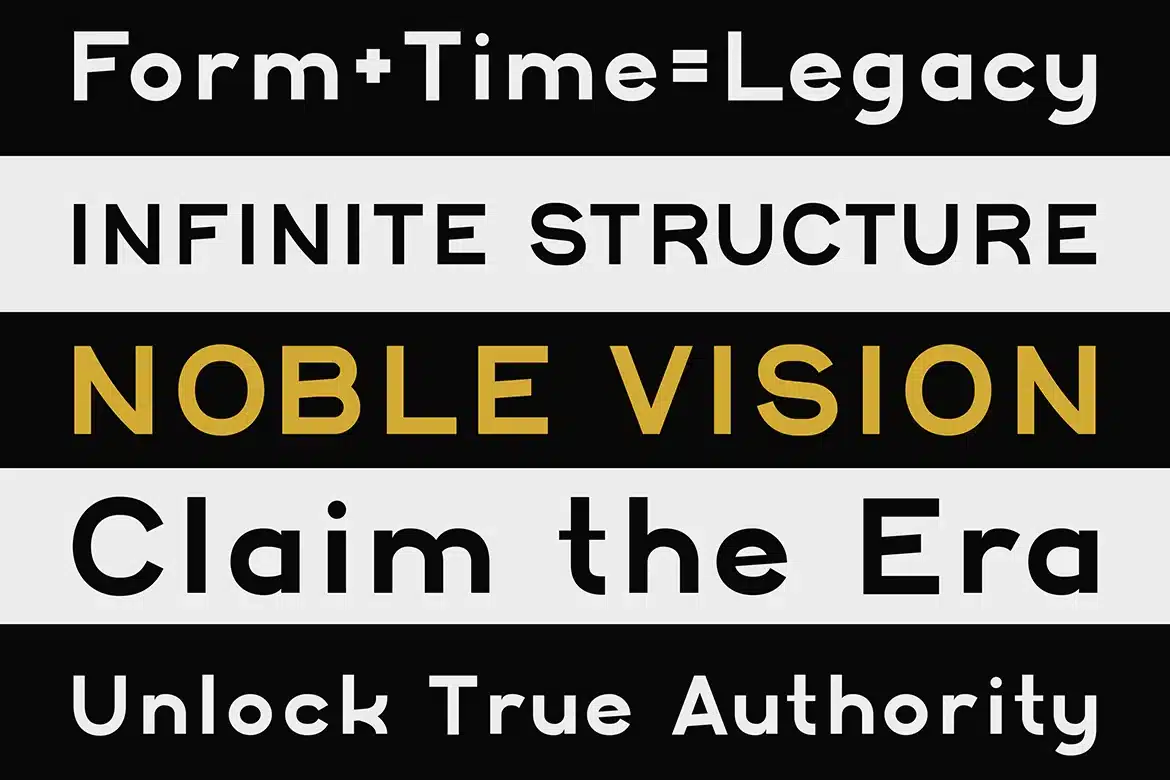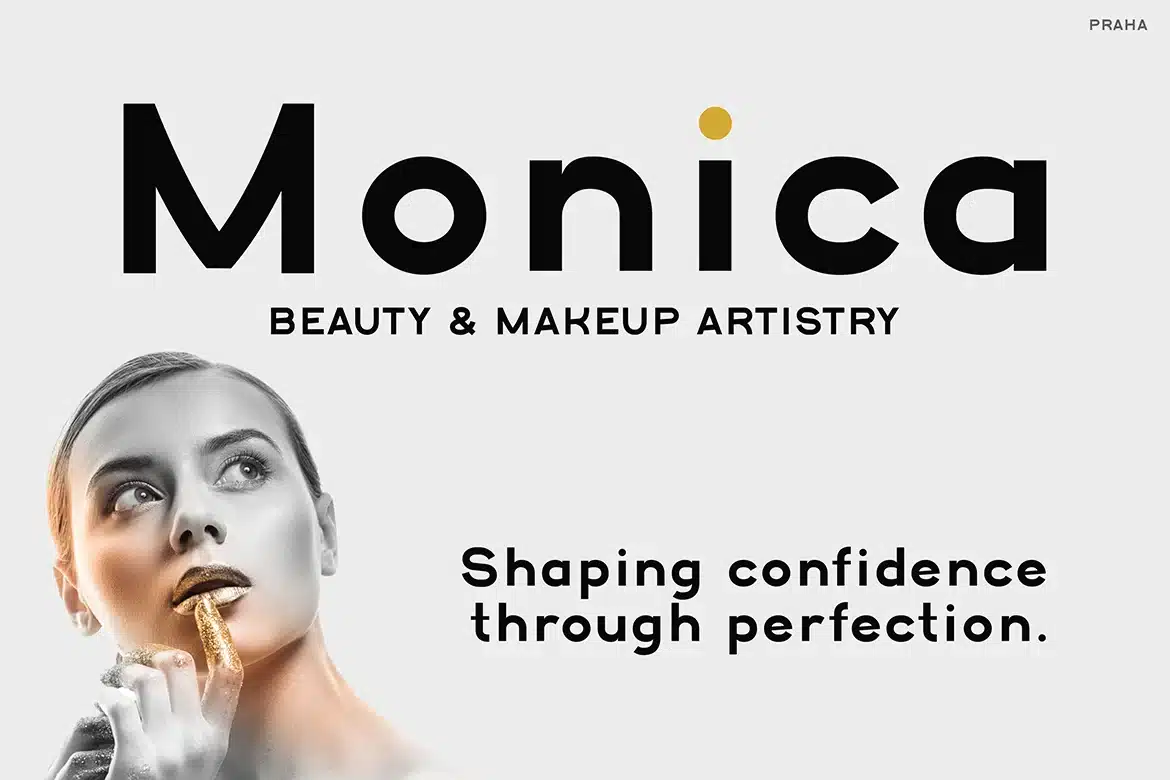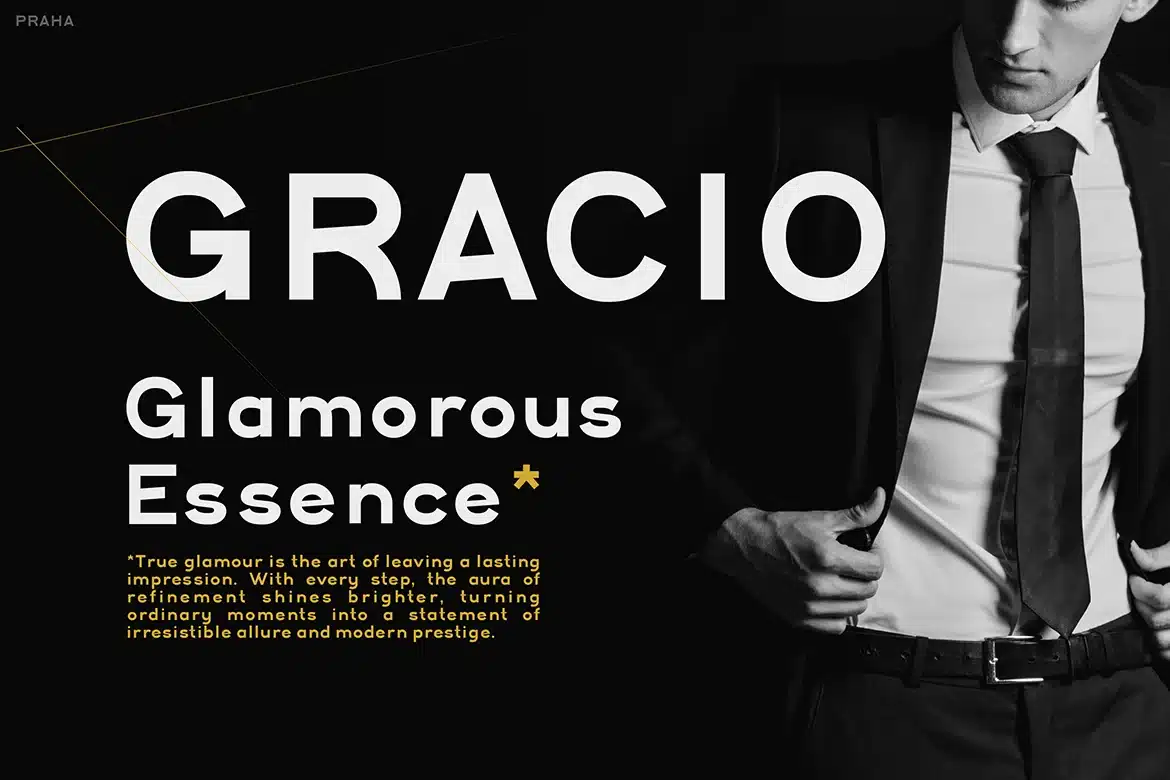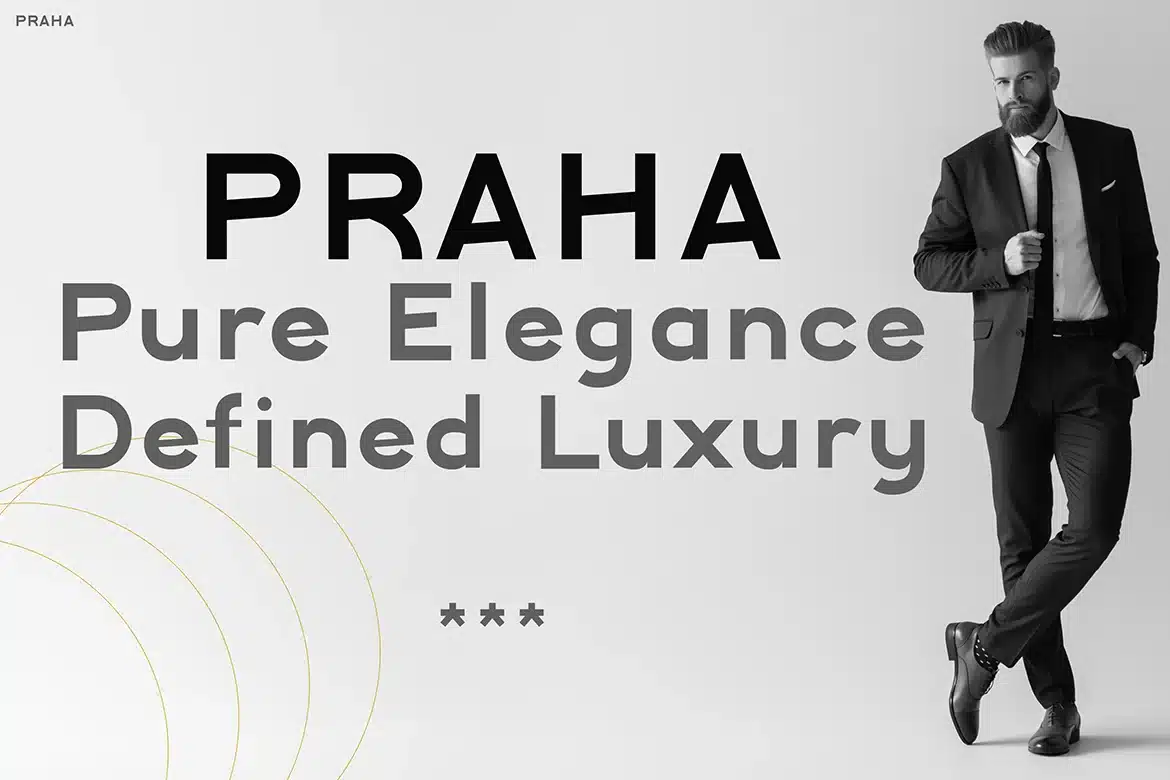
Praha – Modern Font
PRAHA – Modern Typeface
PRAHA is a geometric yet refined display typeface with clean proportions, soft curves, and confident straight terminals. Its elegant low-contrast strokes and sharp balance of form create a visual language that feels modern yet timeless. Designed to capture attention in luxury branding, editorial layouts, and fashion-inspired visuals, PRAHA combines bold sophistication with versatile usability.
Whether you’re designing Instagram campaigns, fashion look-books, high-end packaging, or corporate branding, PRAHA delivers pure elegance with defined structure. Its character evokes confidence, exclusivity, and authority—perfect for entrepreneurs, designers, and agencies aiming to create a luxury-driven brand presence that feels both polished and memorable.
Key Features :
- Timeless Style: Balances modern geometry with refined elegance.
- Luxury Appeal: Perfect for fashion, lifestyle, and corporate branding.
- Versatile Use: Works across posters, packaging, social media, and editorial.
- High Readability: Clear proportions make it suitable for both digital and print.